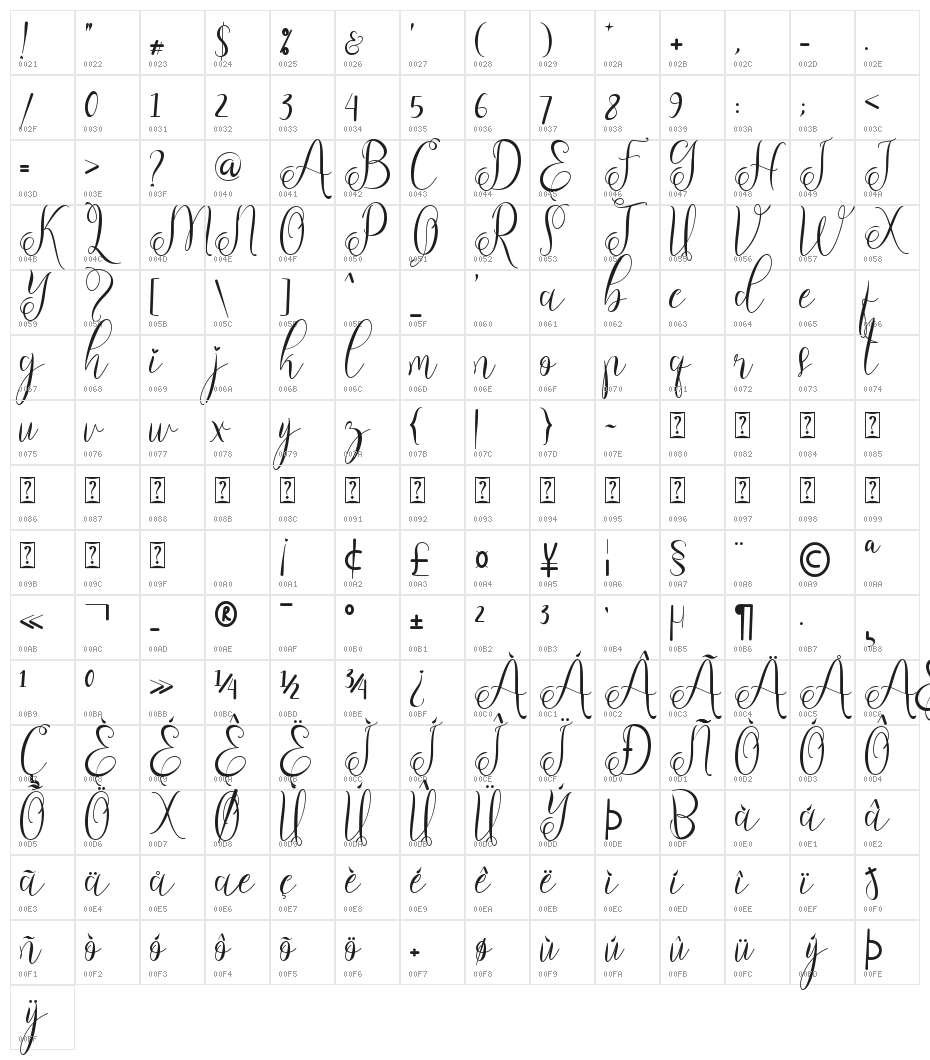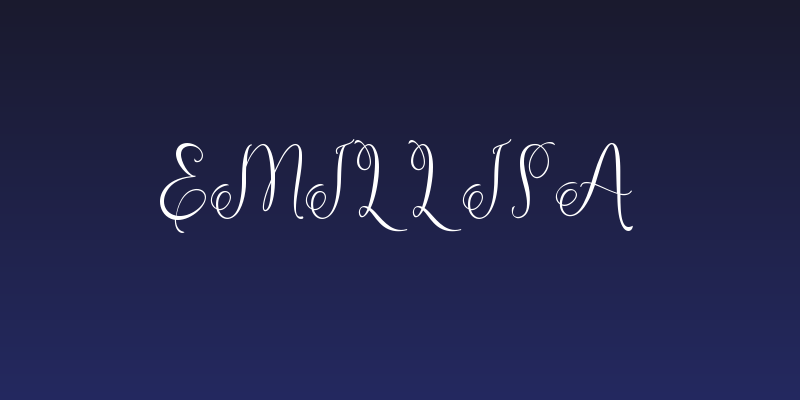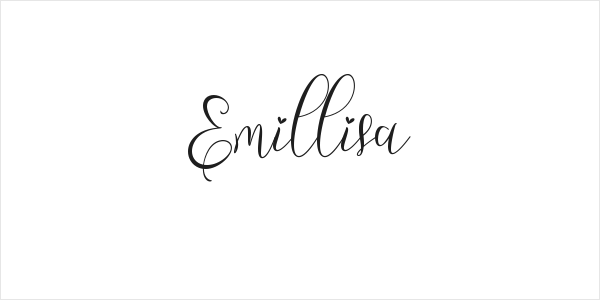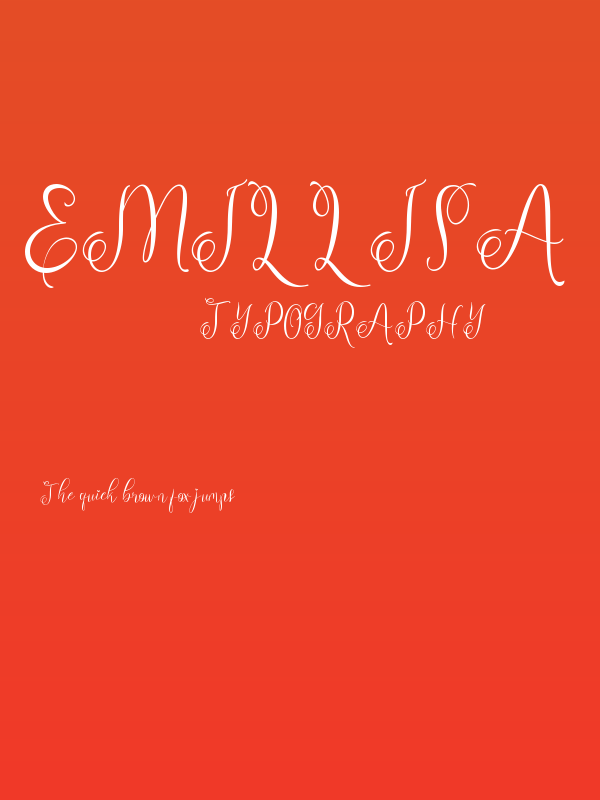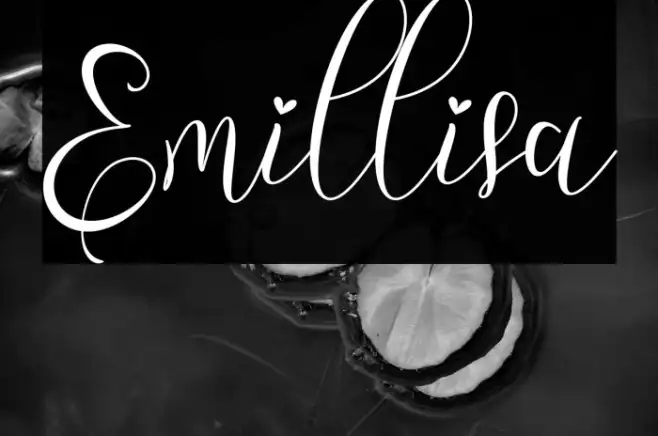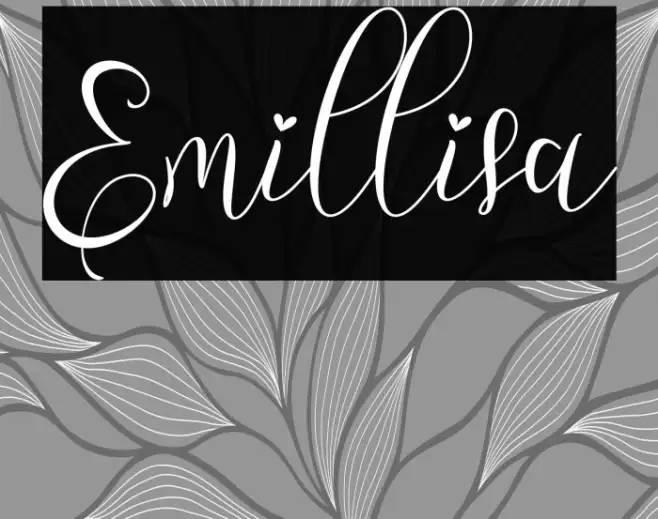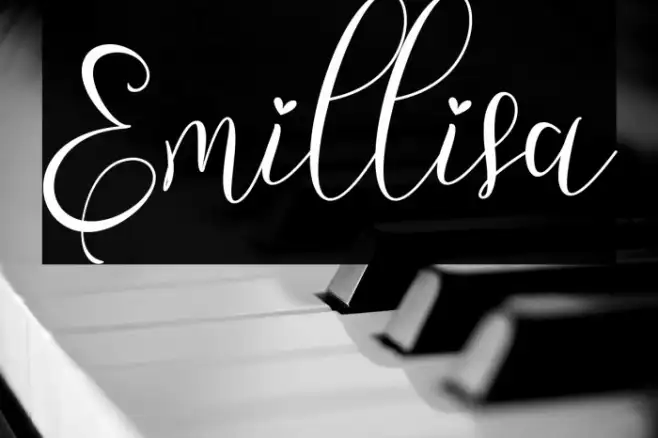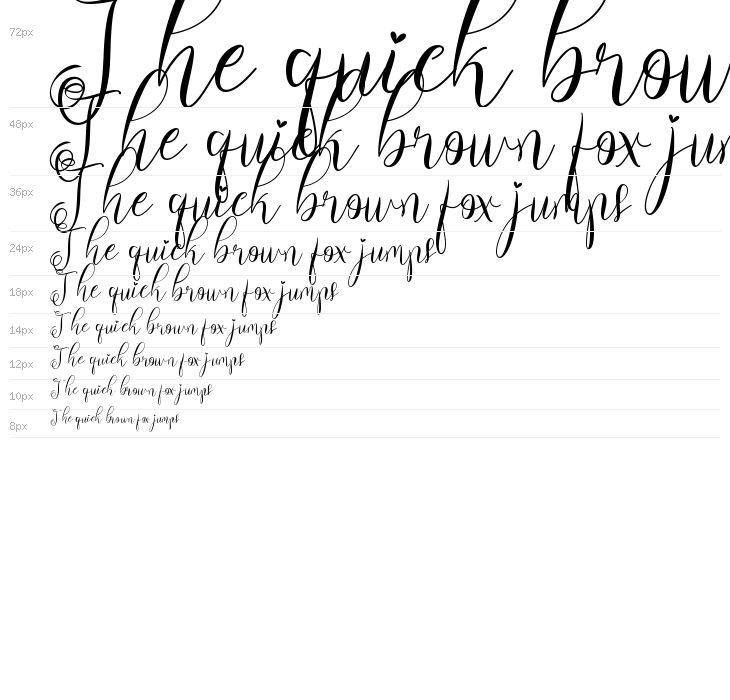
Emillisa Font
Emillisa Description
This elegant script font features a flowing, cursive style with intricate loops and swirls, creating a sense of sophistication and grace. The uppercase letters are adorned with decorative flourishes, while the lowercase letters maintain a smooth, connected appearance. The numerals and special characters complement the overall aesthetic with their stylish curves and embellishments. This font is perfect for adding a touch of elegance to any design project, making it ideal for invitations, branding, and decorative purposes.
| Overall Style | Elegant, Decorative |
| Use Case | Invitations, Branding, Decorative Text |
| Proposed Projects | Ideal for wedding invitations, luxury branding, greeting cards, and decorative signage. |